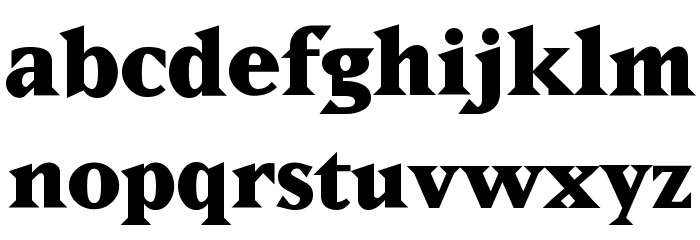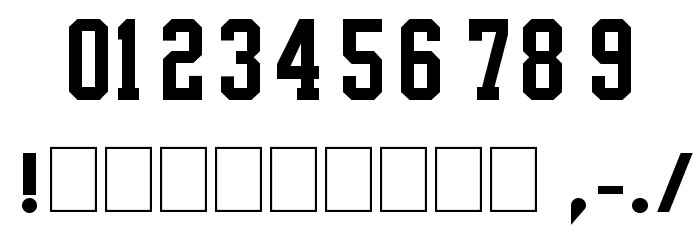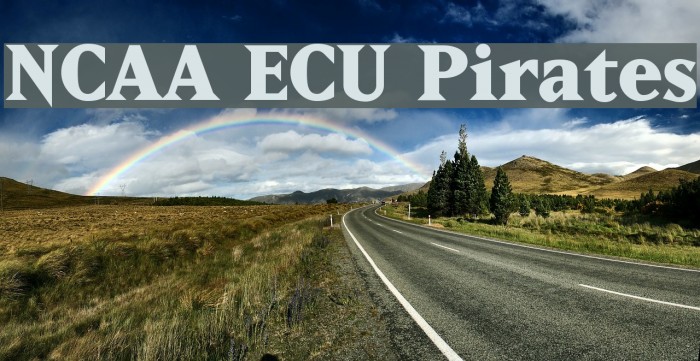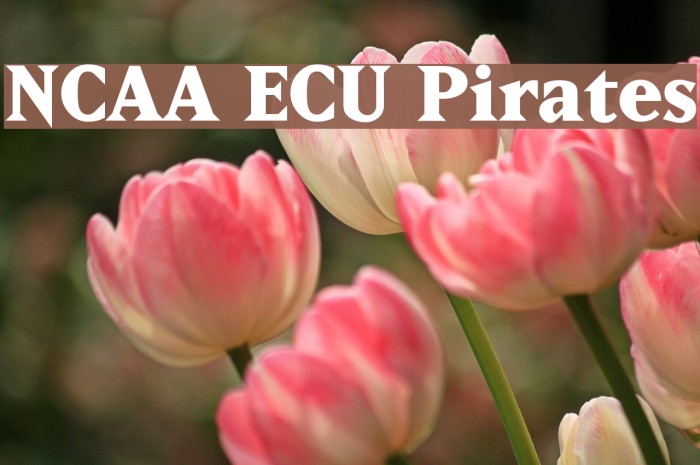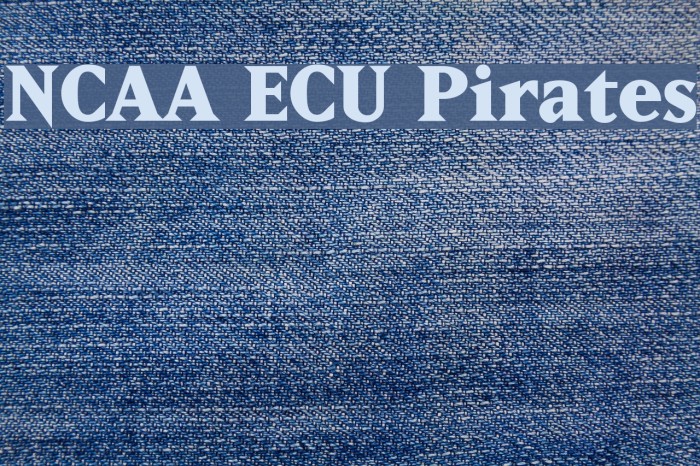
NCAA ECU Pirates Font
This font features a bold and commanding presence with its strong, angular serifs and thick strokes. The uppercase letters are particularly striking, with a uniform height and a slightly condensed appearance that adds to their impact. The lowercase letters maintain the boldness of the uppercase, with a consistent weight that ensures readability. The numerals are equally robust, designed to stand out with their clear, geometric shapes. This font's overall style is reminiscent of traditional collegiate or sports team lettering, making it ideal for projects that require a sense of authority and tradition.
A bold, serif font with strong, angular serifs and a commanding presence.
- Proposed Projects: Ideal for sports team branding, collegiate apparel, posters, and headlines.
- Category: Serif
- Overall Style: Classic